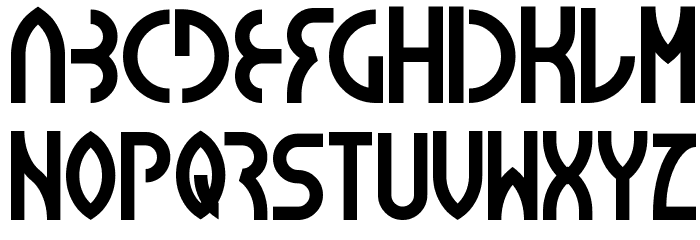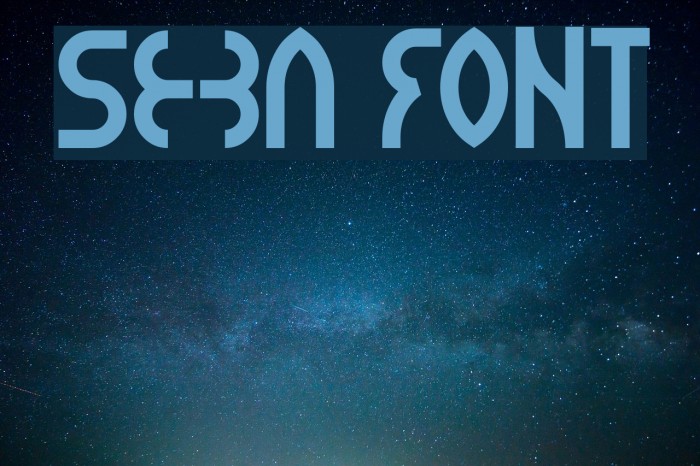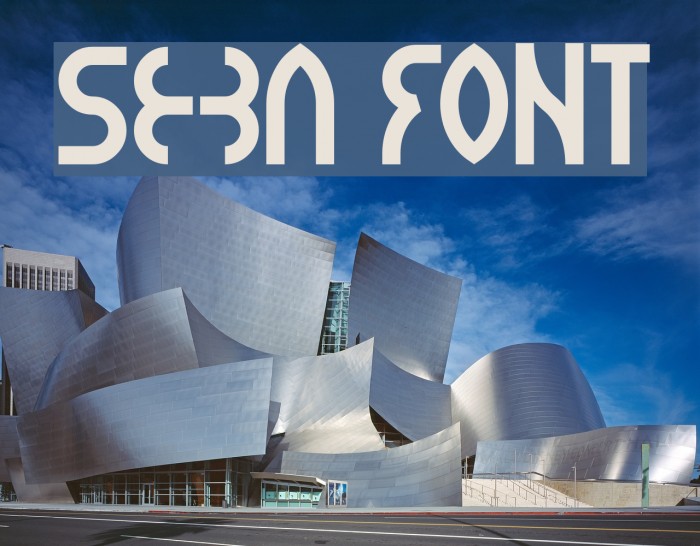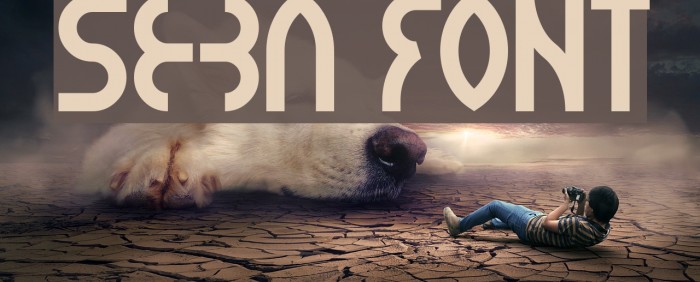
seba Font
This font exhibits a bold and geometric style, characterized by its unique and artistic letterforms. The uppercase letters feature a combination of sharp angles and smooth curves, creating a futuristic and dynamic appearance. The design is consistent across the alphabet, maintaining a uniform look that is both modern and eye-catching. The font's distinctiveness is further enhanced by its symmetrical and balanced structure, making it suitable for creative and innovative design projects. Its boldness ensures high visibility, making it ideal for headlines and titles that need to stand out.
A bold, geometric font with a futuristic and dynamic style.
- Proposed Projects: Ideal for branding, logos, posters, and any project requiring a modern and striking visual impact.